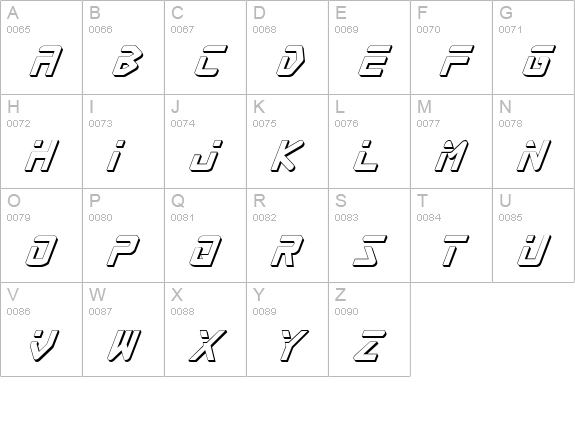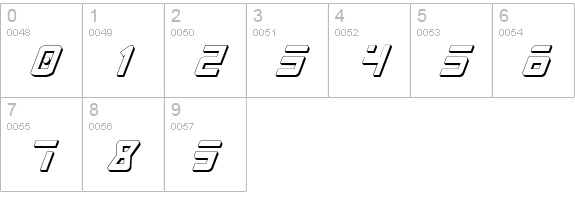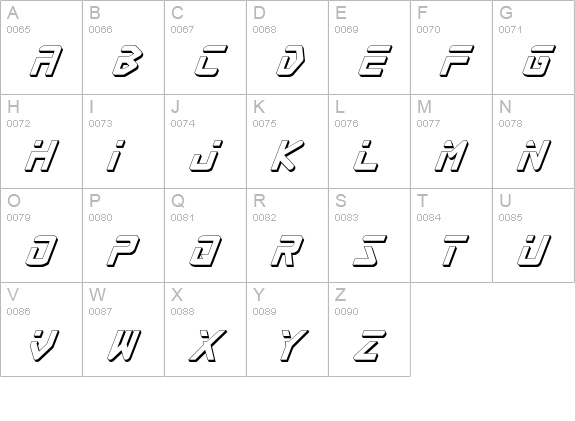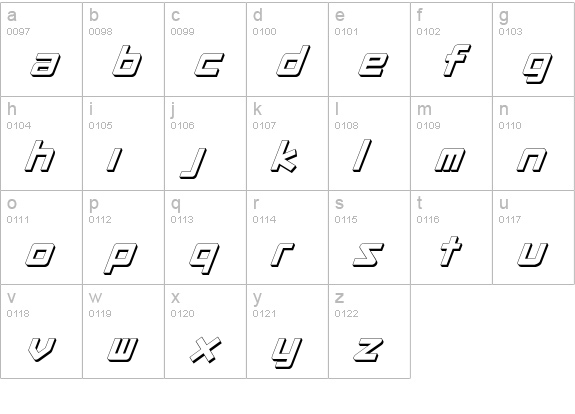
Procyon Shadow Italic Font Details
Procyon Shadow Italic is a distinctive, italic variant in the Procyon typeface family \xE2\x80\x94 well suited to design and typography projects.
Procyon Shadow Italic is a beautifully designed font that exudes elegance and sophistication. Its sleek italic style adds a touch of modernity while maintaining a classic appeal. The graceful curves and carefully crafted shadows create a sense of depth and dimension, making this font perfect for adding a touch of flair to any project. What sets Procyon Shadow Italic apart is that it is not only stunning to look at, but it is also free to use. Whether you are working on a creative design project, crafting a professional presentation, or simply looking to elevate your personal projects, this font is a versatile choice that will surely impress. You can easily download Procyon Shadow Italic for free at FontsMarket.com. With just a few clicks, you can add this stylish and versatile font to your collection and start using it in your projects right away. Don't miss out on the opportunity to enhance your designs with this eye-catching and elegant typeface.